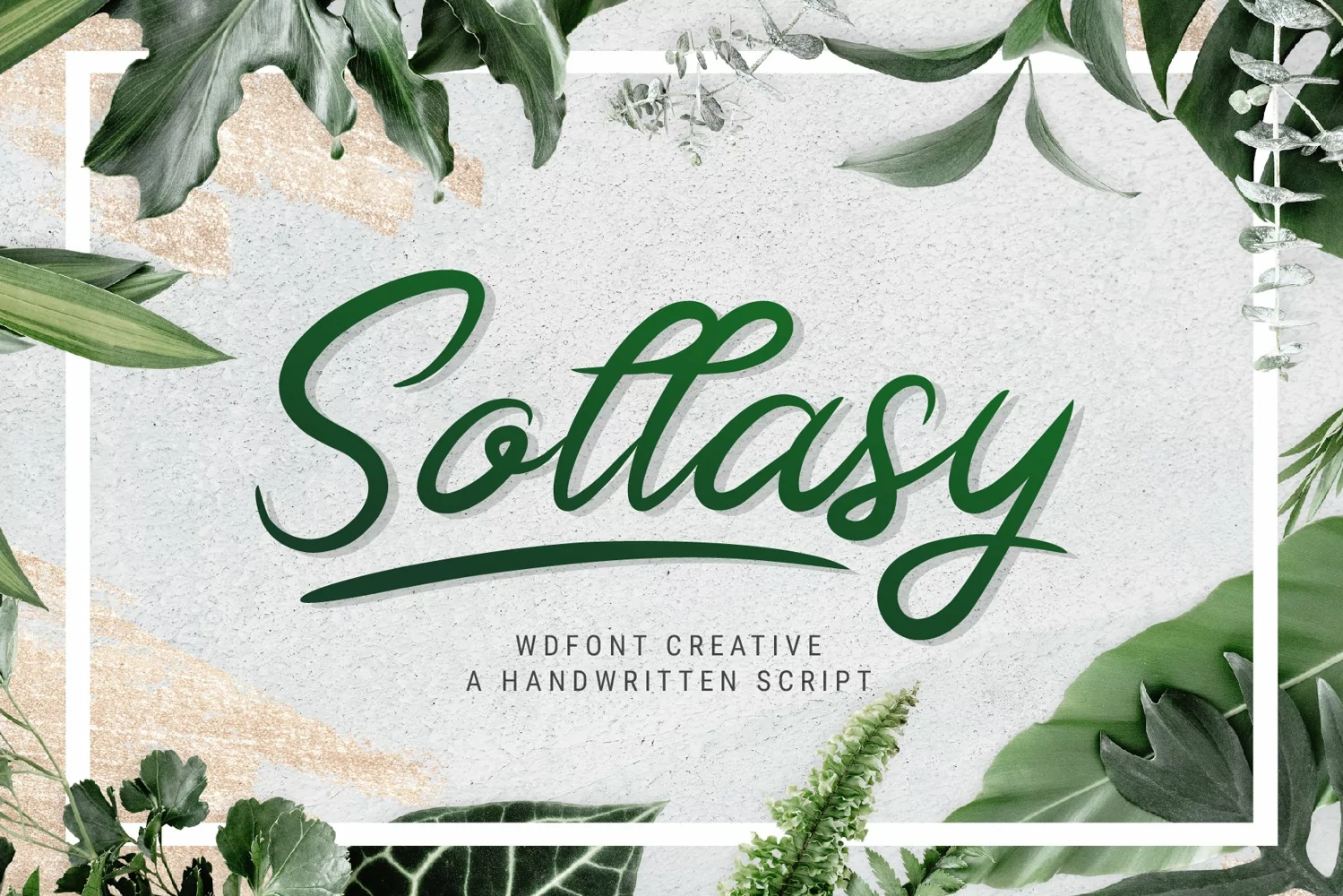
Sollasy Font
Sollasy Font is perfect for modern branding, social media graphics, website headings, packaging design, and editorial layouts. Its clean and contemporary style makes it highly versatile for various design projects.
What makes Sollasy Font exciting is its sleek, well-balanced letterforms that combine readability with a modern aesthetic. The font’s minimalist design allows it to adapt to both creative and professional applications seamlessly.
The Sollasy Font family includes Regular, Bold, Italic, and Light variations, giving designers the flexibility to create cohesive typographic hierarchies and visually appealing compositions.